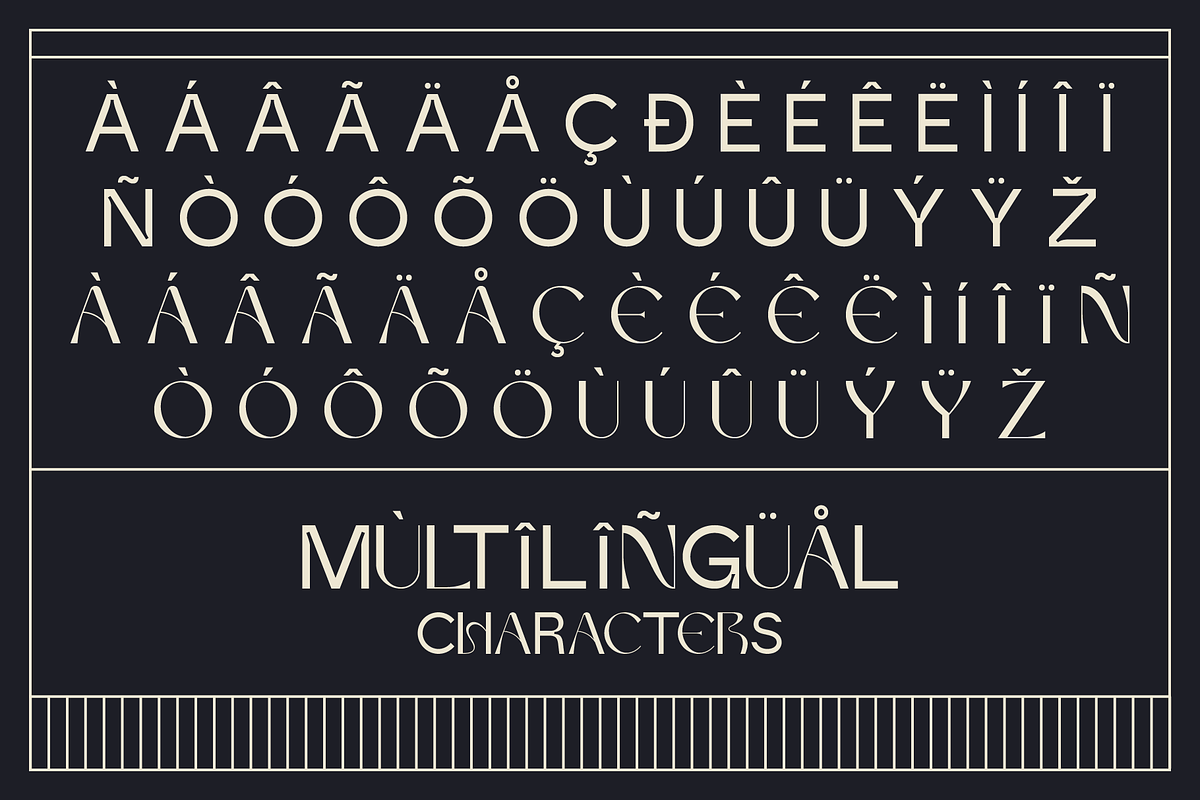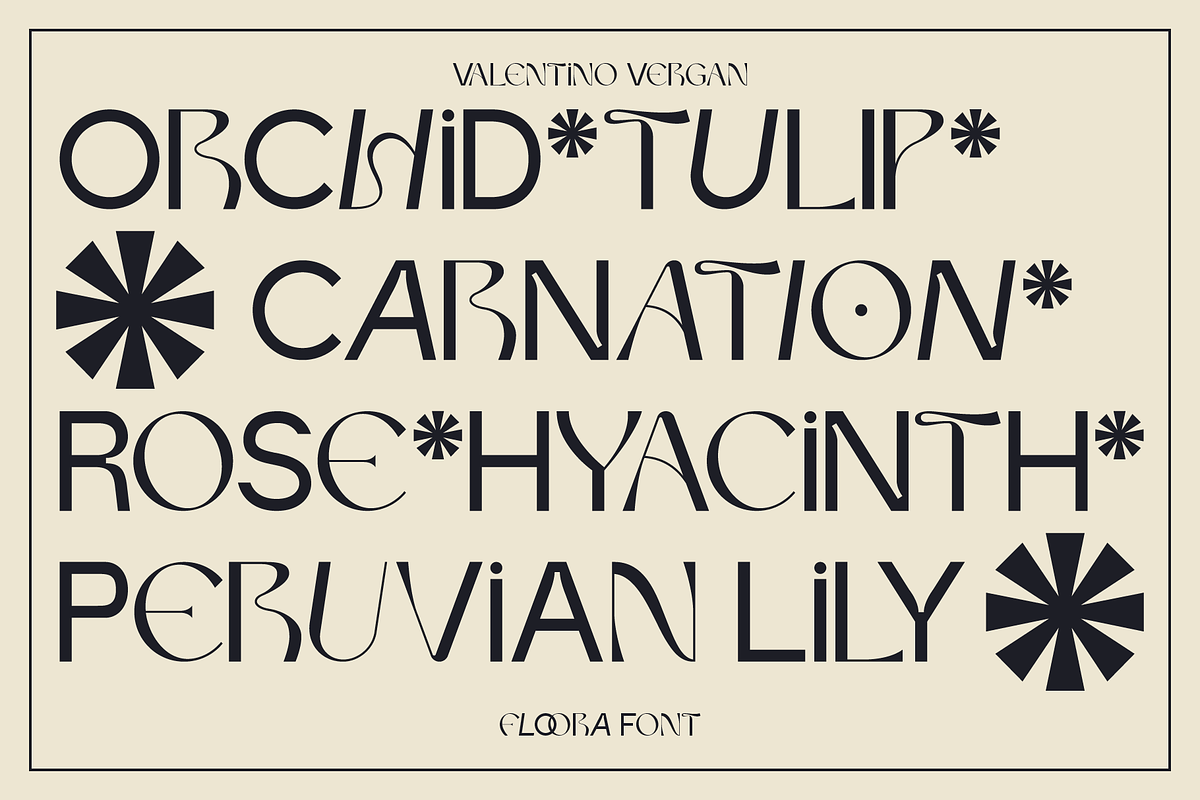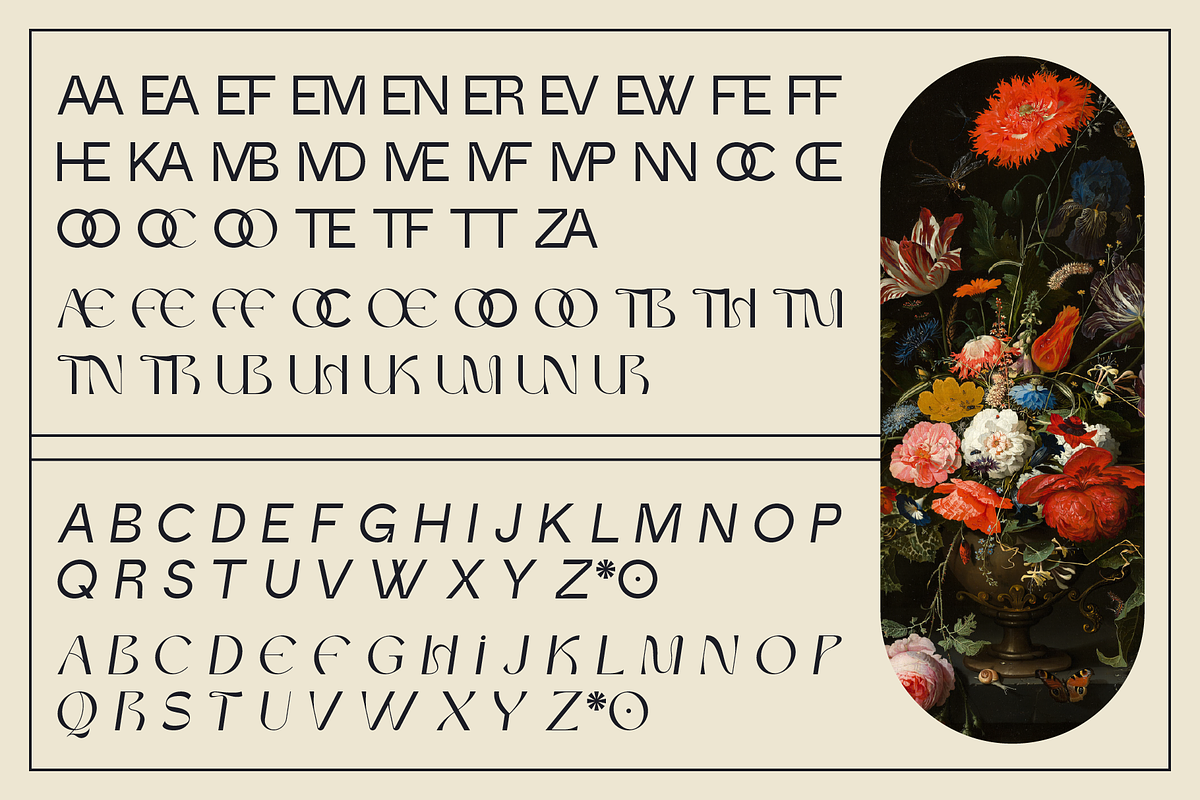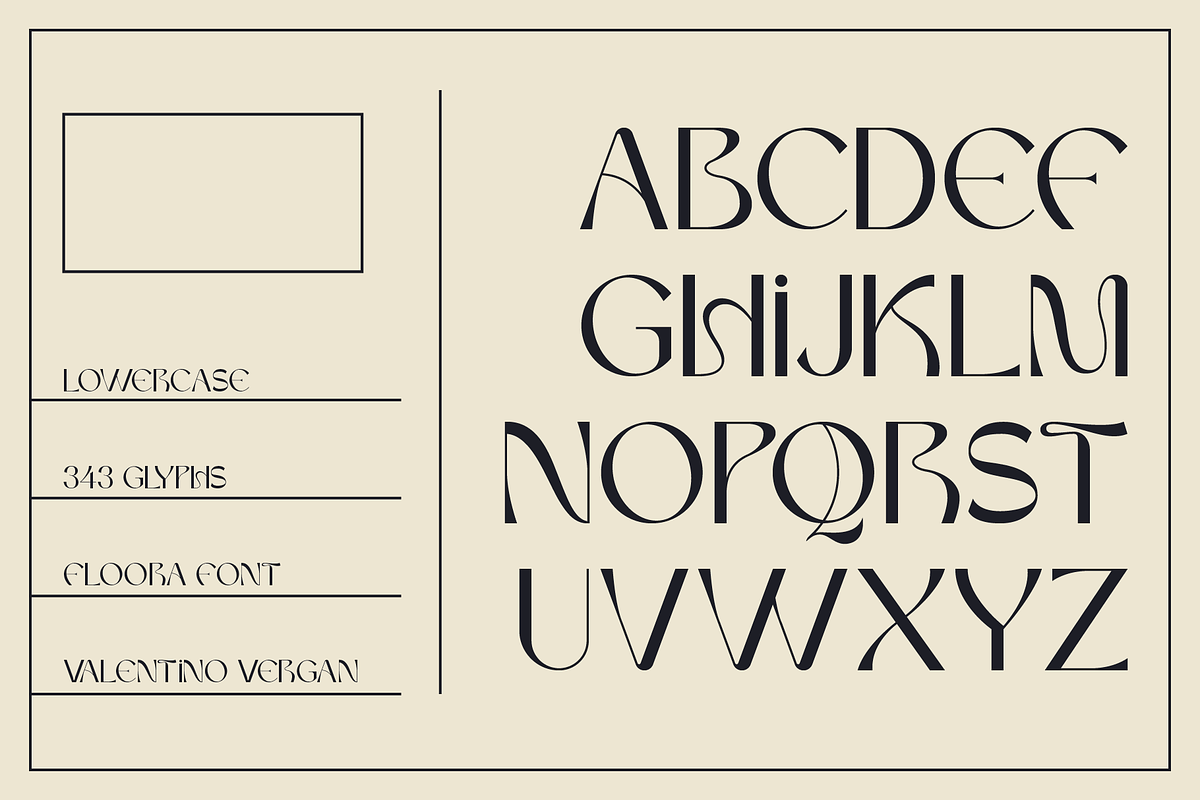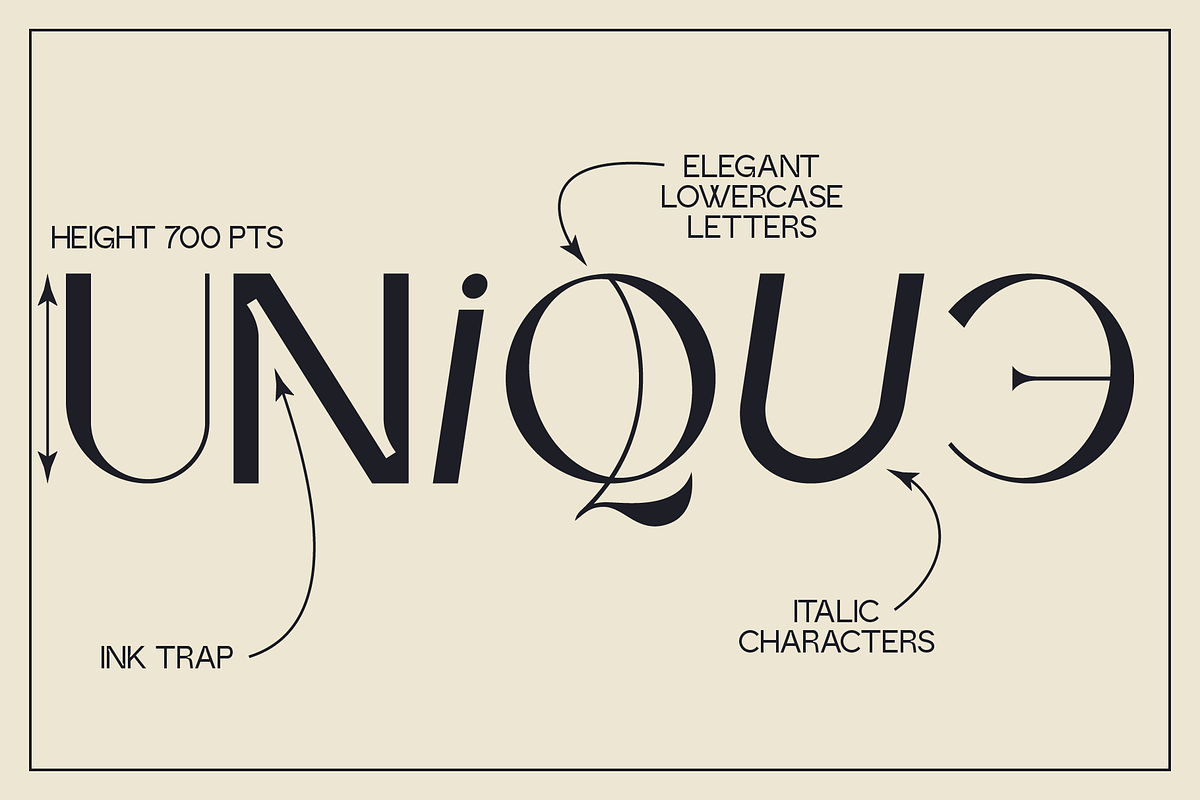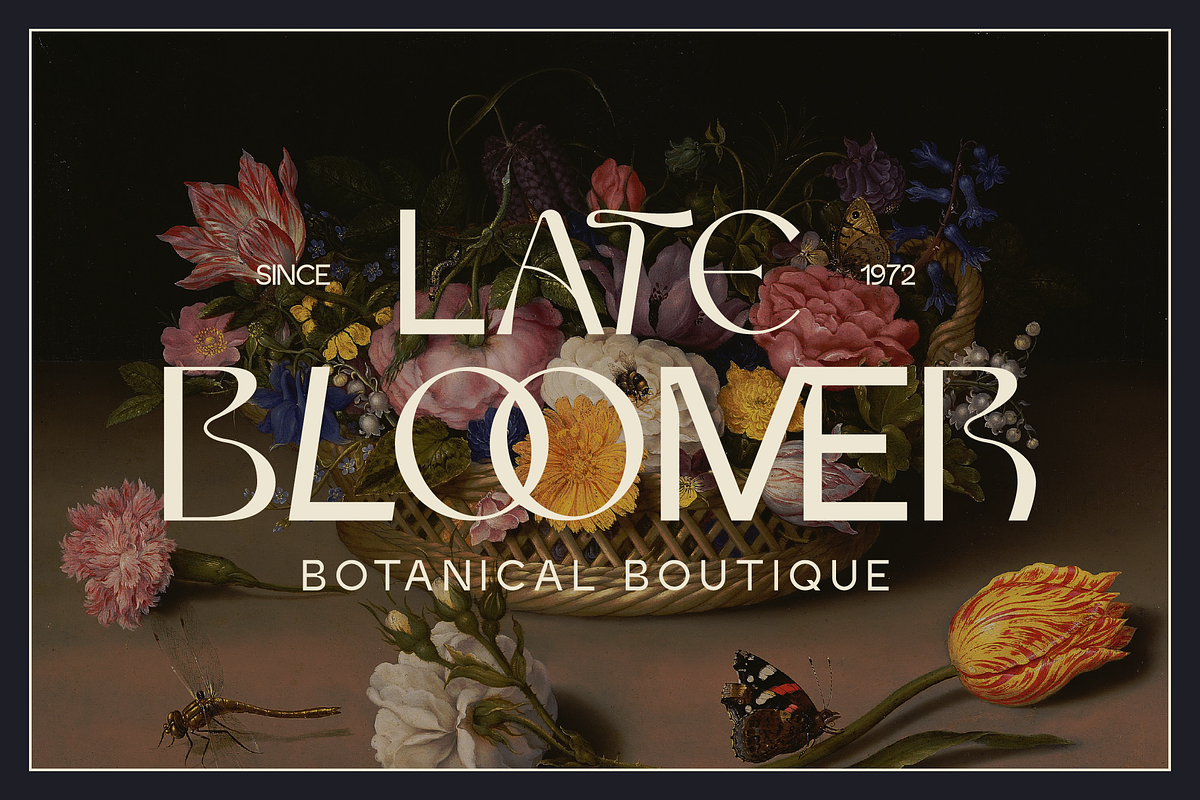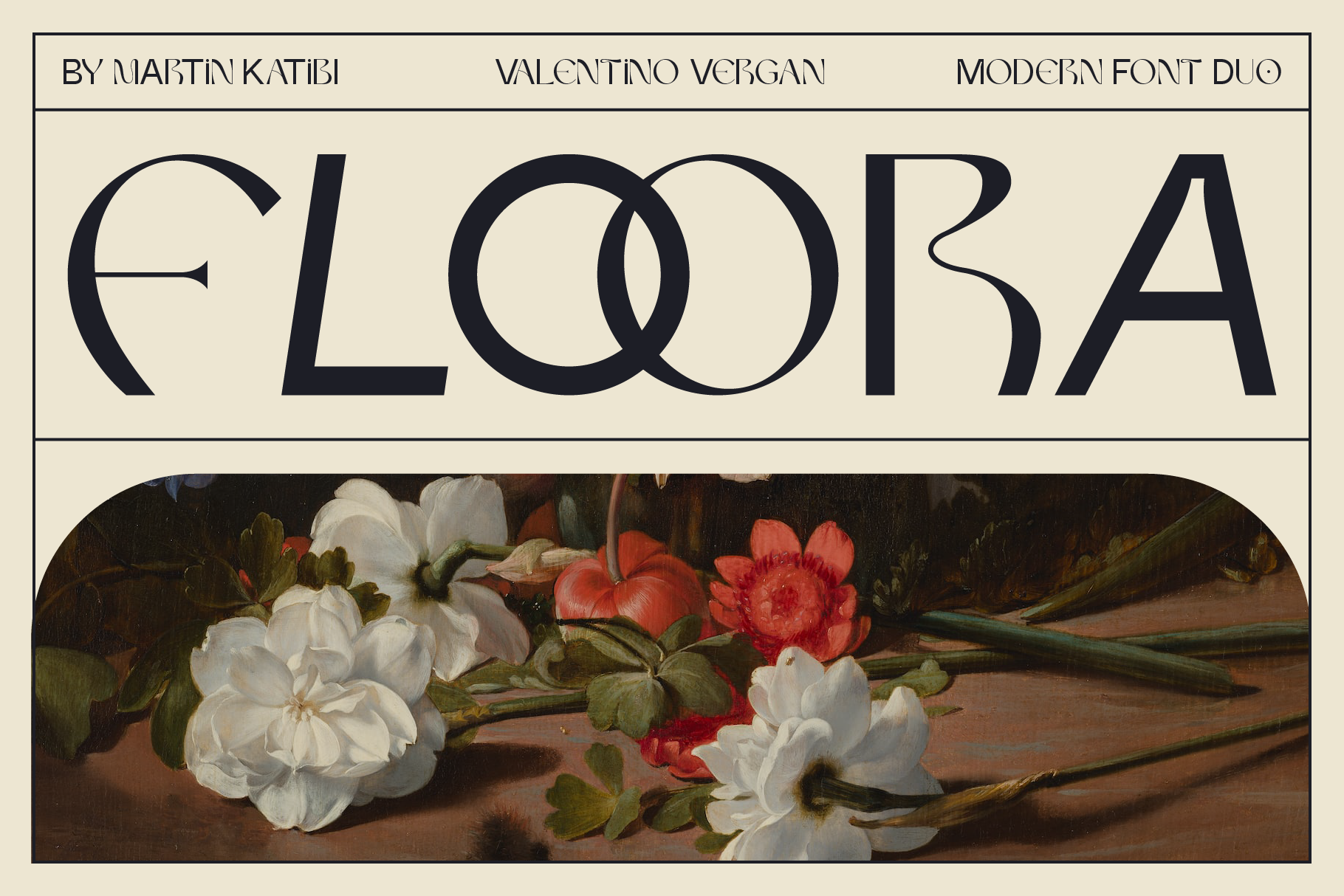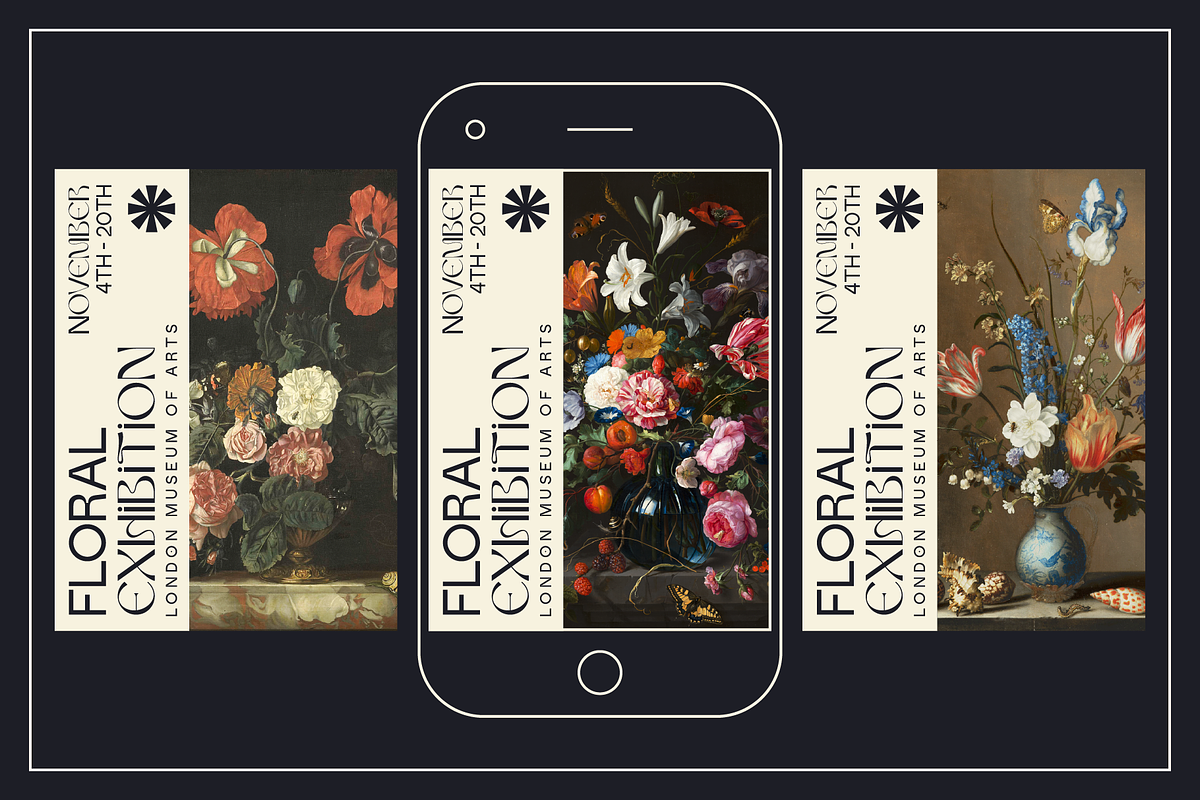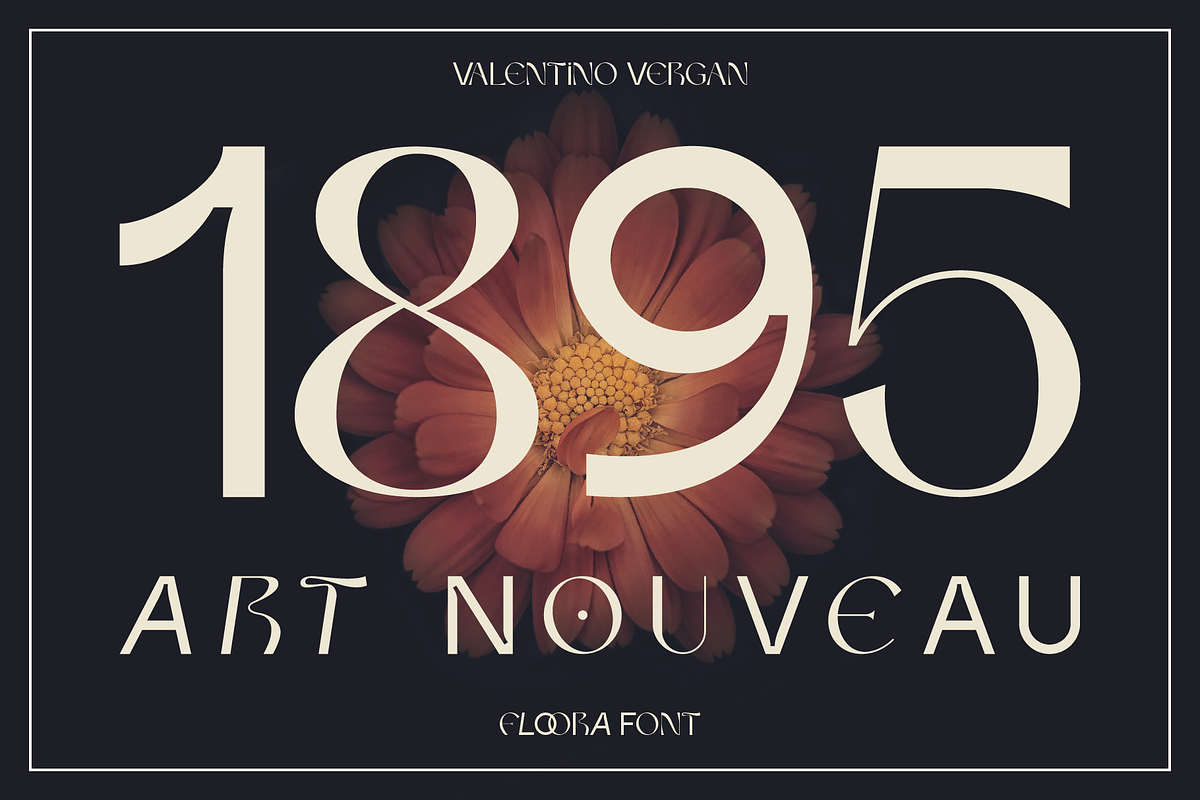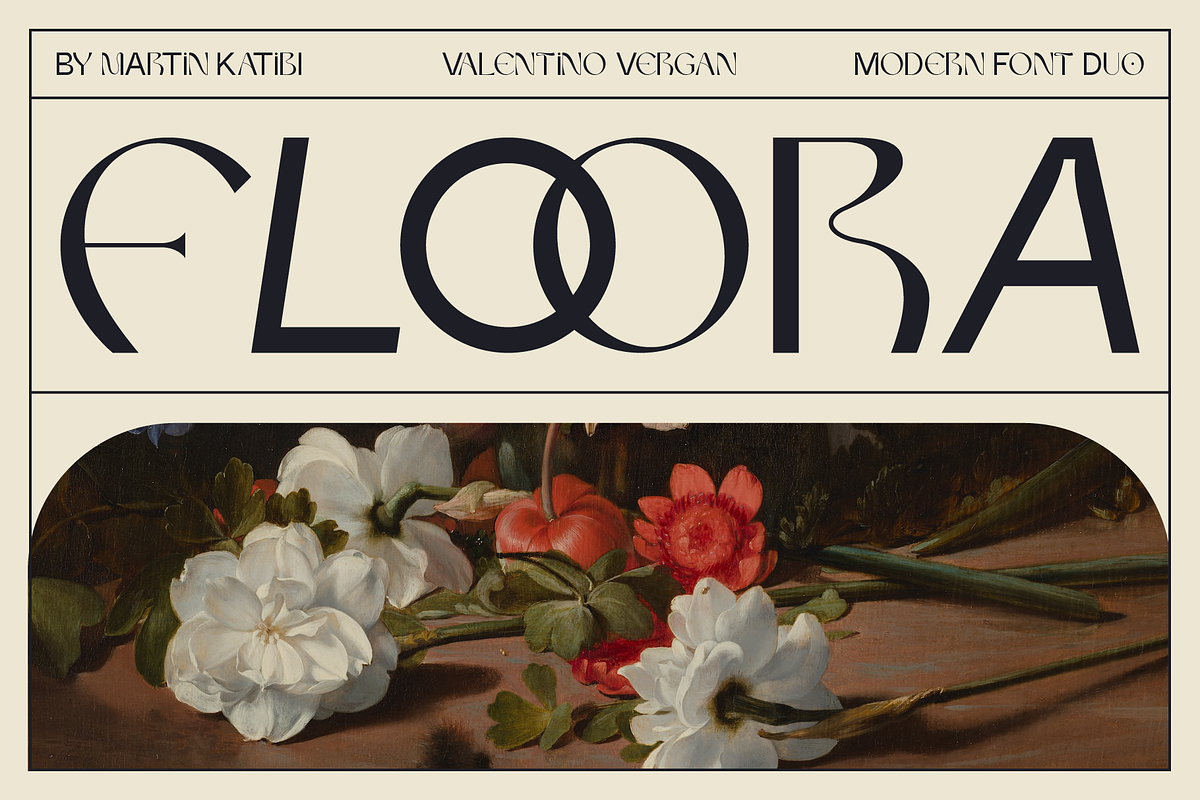
Floora - Modern Font Duo
Floora is a modern and unique font duo. The font combines two different type styles, a polished uppercase sans serif and a Neue Nouveau style lowercase, this combination makes the font very unique and distinct. The uppercase sans serif comes with large ink traps at its joints, this gives the font a modern and trendy appearance.
Floora has a set of italic uppercase and lowercase letters, this combination of regular and italic letters gives you the ability to create a multitude of different letter combinations. Floora was also created with unique ligatures, alternative characters and multi-language support.
Floora is perfect for designing posters, magazines, logos, Instagram posts, websites, blog posts, pull quotes, social media posts and much more.
If you a looking for something modern and unique for you next project, Floora is the font for you.